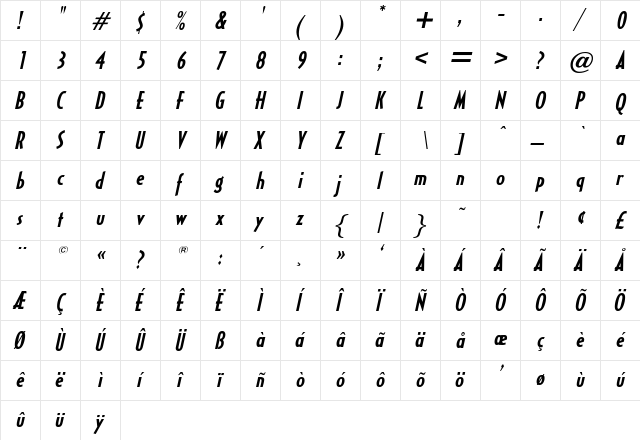
HalseyCondSSK BoldItalic Font Preview
Design Context for HalseyCondSSK Typeface
HalseyCondSSK offers clean, dependable letterforms without strong stylistic allegiance, making it a practical choice for designers who need flexibility. The dynamic lean of this cut emphasises speed and emphasis in any layout. Its bold stroke weight gives it real presence on the page. Its narrow stance lets it pack a punch even in space-constrained designs.
Pro Tip: Try HalseyCondSSK for annotation and caption copy alongside an upright companion — the contrast in angle creates a dynamic but ordered typographic system.